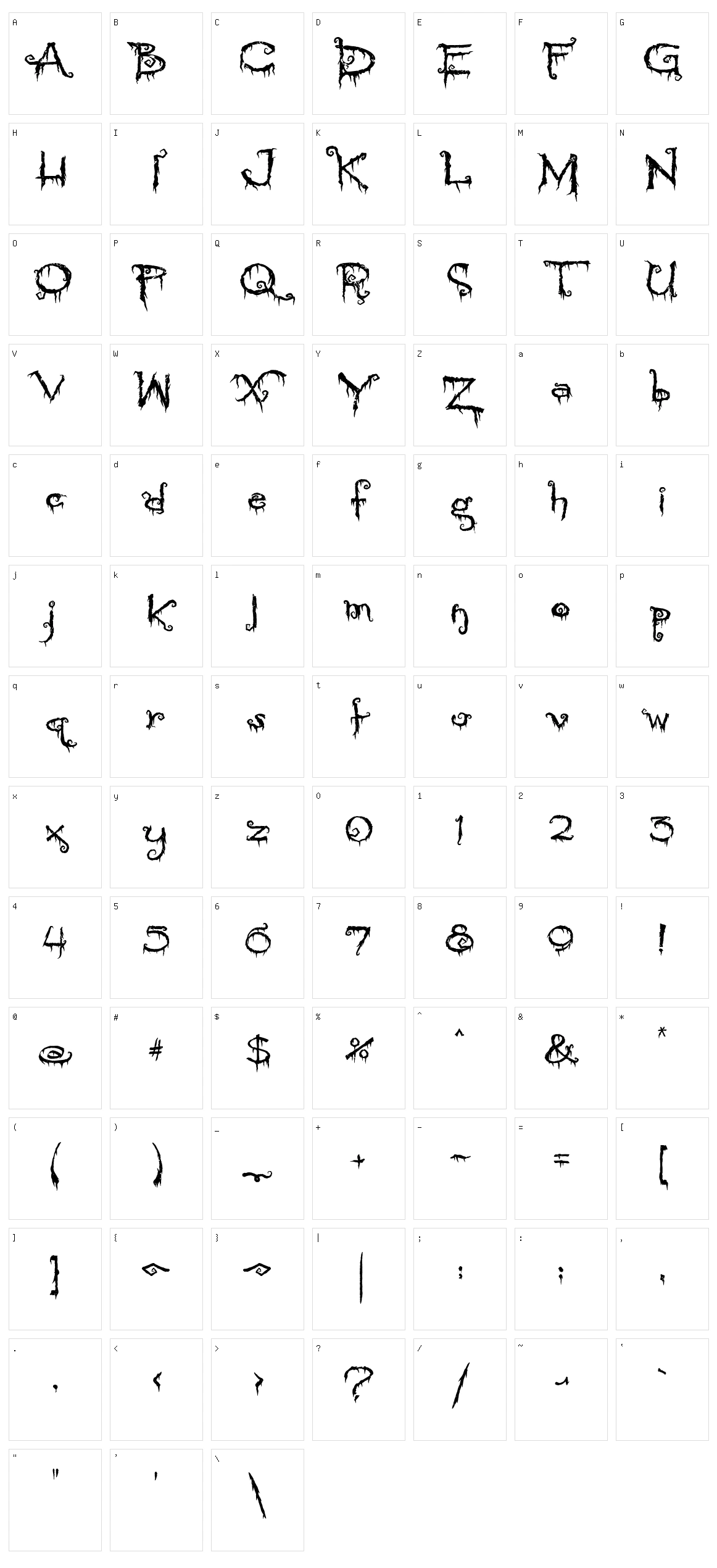
A bit about this font: This spooky font is based off my textured script font called Pyrite Scrypt - the two fonts could go hand in hand but since they are completely different they have been published seperately. The font serves the purpose to appear run down and shriveled, it has some grunge textures and lots of spirals and drips.